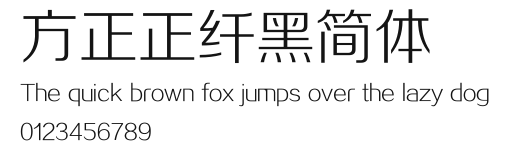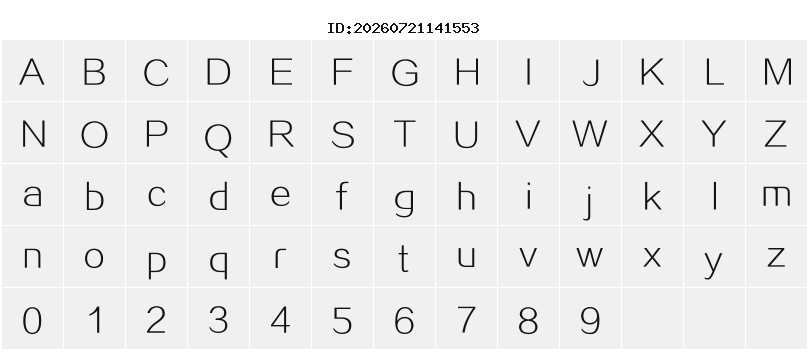
• Font Name: 方正正纤黑简体
• Full Font Name: 方正正纤黑简体
About 方正正纤黑简体.ttf
方正正纤黑简体.ttf is a modern, elegant sans-serif font designed for ultimate readability and visual harmony. Perfect for branding, headlines, web design, and print materials.